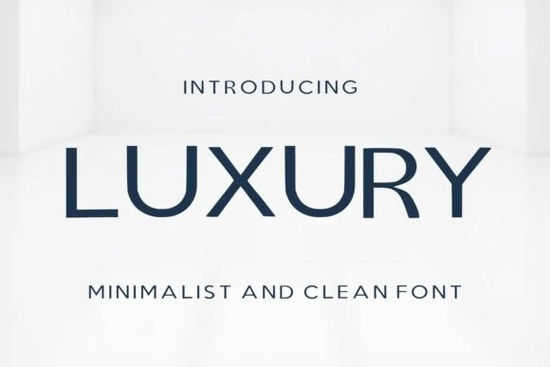
If you're looking for a clean, modern typeface that communicates quality without shouting, Luxury Font is worth your attention. It’s not flashy or overly decorative instead, it’s thoughtfully built for designers and small business owners who want their branding to feel intentional, calm, and confident. Whether you’re designing a wedding invitation suite, packaging for an organic skincare line, or a minimalist logo for a boutique interior studio, this font supports your message rather than competing with it.
What makes Luxury Font different from other minimalist fonts?
Many sans-serif fonts claim to be “luxury” or “elegant,” but few balance restraint with character as consistently as Luxury Minimal Font. Its letterforms are geometric but softened subtle curves on terminals, even spacing, and carefully tuned x-heights that improve readability at small sizes. Unlike some ultra-thin display fonts, it holds up well in both print and digital settings: think product labels, Instagram story text, or fine-print website footers.
It’s also designed with real-world use in mind. The family includes standard OpenType features like ligatures and alternate characters, so you can add quiet refinement without switching fonts. And because it’s optimized for clarity, it works just as well on a matte-finish cosmetic box as it does on a high-resolution portfolio site.
Who actually uses this font and where?
You’ll find Luxury Minimal Font in projects where tone matters as much as legibility:
- Fashion brands building cohesive lookbooks or e-commerce banners
- Small-batch beauty businesses labeling serums or candles
- Wedding stationery designers crafting save-the-dates and menus
- Interior designers presenting mood boards or client proposals
- Print-on-demand sellers creating premium wall art or greeting cards
It’s especially helpful if you work across multiple formats say, pairing the same font on a physical business card and a Canva social post. That consistency builds trust, and Luxury Minimal Font delivers it without requiring custom kerning or manual tweaks.
How does it pair with other fonts?
Because of its neutral yet distinctive structure, Luxury Minimal Font pairs naturally with both serif and sans-serif companions. Try it with a warm, humanist serif like Makio Font for contrast in editorial layouts, or layer it with Metha Font for a clean, dual-weight system in branding kits. If you prefer all-sans systems, Might Font adds gentle weight variation while keeping the overall feel grounded and professional.
You don’t need to overthink combinations this font was built to support, not dominate. That’s why many designers keep it in their go-to folder alongside other reliable options like Luxury Font (the broader category), especially when working on lifestyle or wellness-related projects.
Is it practical for everyday design tasks?
Yes and here’s why: it includes full Latin character sets, basic punctuation, and common diacritics (like accents used in French or Spanish). That means it’s usable for more than just English-language projects. It also loads quickly in web projects when self-hosted, and embeds cleanly into PDFs and Illustrator files.
One thing to note: while it’s versatile, it’s not meant for long-form body text in dense documents. Think headlines, logos, short quotes, and packaging copy places where tone and first impression matter most.
- ✔️ You need a font that feels upscale but doesn’t rely on ornate details
- ✔️ Your project involves branding, packaging, or invitations not code-heavy UI interfaces
- ✔️ You’ve already tried lighter or bolder alternatives and found them too fragile or too heavy
If those match your needs, Luxury Minimal Font is likely a solid fit. It won’t solve every typography challenge, but it handles its niche refined, contemporary minimalism with quiet confidence.